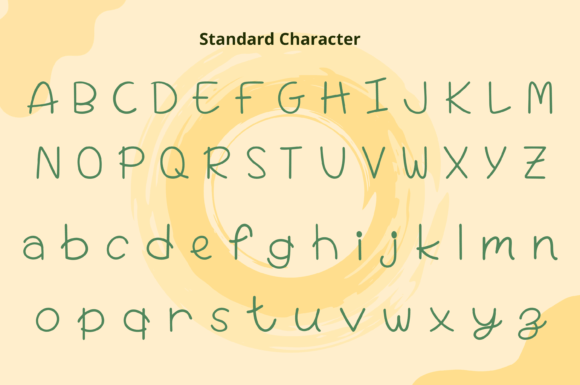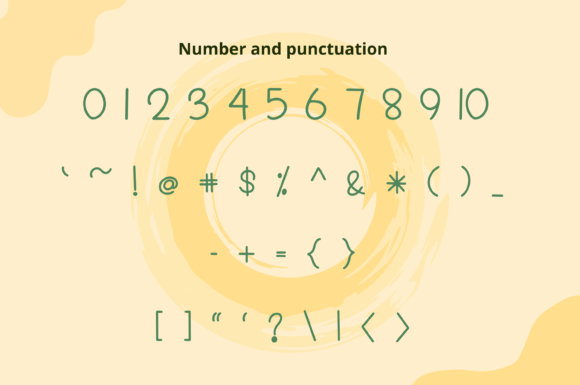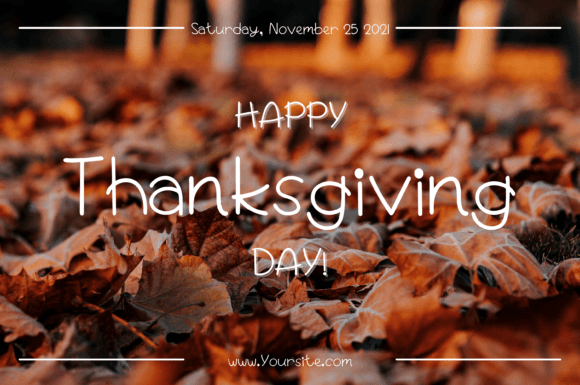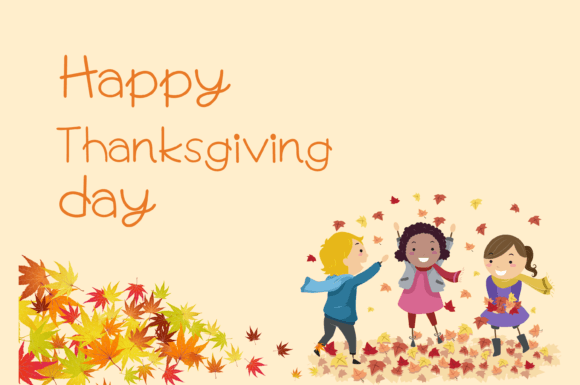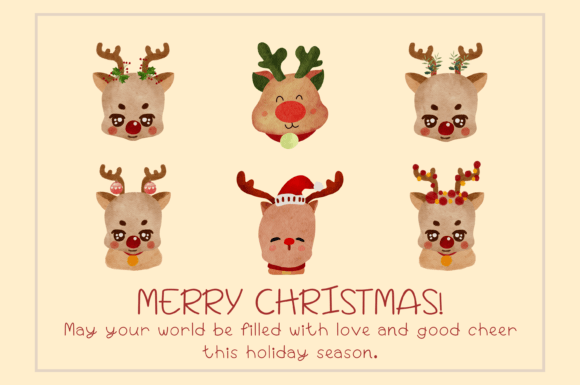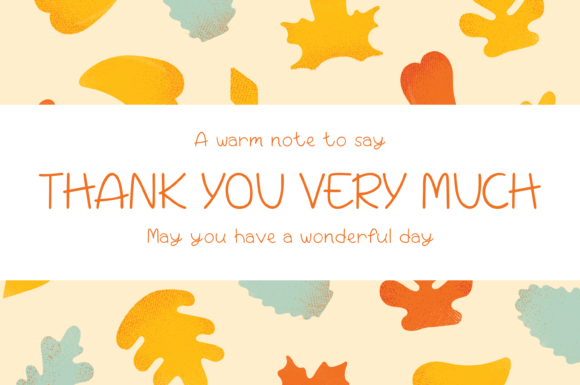
Introducing Beautiful Seasons Font: Elevate Your Designs with Whimsy and Elegance
Are you on the hunt for a font that adds a touch of whimsy and cleanliness to your designs? Look no further than Beautiful Seasons Font. This stunning handwritten font is perfect for designers and crafters looking to make their projects stand out from the crowd. With its unique blend of playfulness and sophistication, Beautiful Seasons Font is sure to become a staple in your design toolkit.
A Versatile Font for a Wide Range of Projects
One of the best things about Beautiful Seasons Font is its incredible versatility. Whether you’re working on a branding project, a social media graphic, or a craft project, this font can easily be matched to your needs. Its clean and handwritten style makes it perfect for a wide range of applications, from:
- Craft projects, such as card making and scrapbooking
- Print materials, like brochures and flyers
What Makes Beautiful Seasons Font So Special?
So, what sets Beautiful Seasons Font apart from other fonts on the market? Here are just a few of its standout features:
- Whimsical and clean design: Beautiful Seasons Font boasts a unique blend of playfulness and sophistication, making it perfect for designers and crafters who want to add a touch of personality to their projects.
- Handwritten style: The font’s handwritten style gives it a personal and approachable feel, making it perfect for projects where you want to connect with your audience.
- Highly legible: Despite its whimsical design, Beautiful Seasons Font is highly legible, even at small sizes.
How to Use Beautiful Seasons Font in Your Designs
Using Beautiful Seasons Font in your designs is easy. Here are a few tips to get you started:
- Pair it with bold colors: Beautiful Seasons Font looks stunning paired with bold, bright colors. Try using it with a bold color scheme to add a pop of personality to your designs.
- Experiment with different sizes: Don’t be afraid to experiment with different font sizes to add visual interest to your designs.
- Use it for headings and titles: Beautiful Seasons Font is perfect for headings and titles, where its whimsical design can really shine.
Why Designers and Crafters Love Beautiful Seasons Font
Beautiful Seasons Font has quickly become a favorite among designers and crafters, and it’s easy to see why. Here are just a few reasons why:
- Easy to use: Beautiful Seasons Font is incredibly easy to use, even for those who are new to design.
- High-quality design: The font’s high-quality design makes it perfect for professional-looking projects.
- Versatile: As mentioned earlier, Beautiful Seasons Font is incredibly versatile, making it perfect for a wide range of projects.
In conclusion, Beautiful Seasons Font is a must-have for designers and crafters looking to add a touch of whimsy and elegance to their projects. With its unique blend of playfulness and sophistication, this font is sure to become a staple in your design toolkit. So why wait? Download Beautiful Seasons Font today and start creating stunning designs that stand out from the crowd!
Whether you’re a seasoned designer or a crafter looking for a new font to add to your collection, Beautiful Seasons Font is sure to impress. Its versatility, legibility, and high-quality design make it perfect for a wide range of projects. So go ahead, get creative, and see how Beautiful Seasons Font can elevate your designs to the next level!